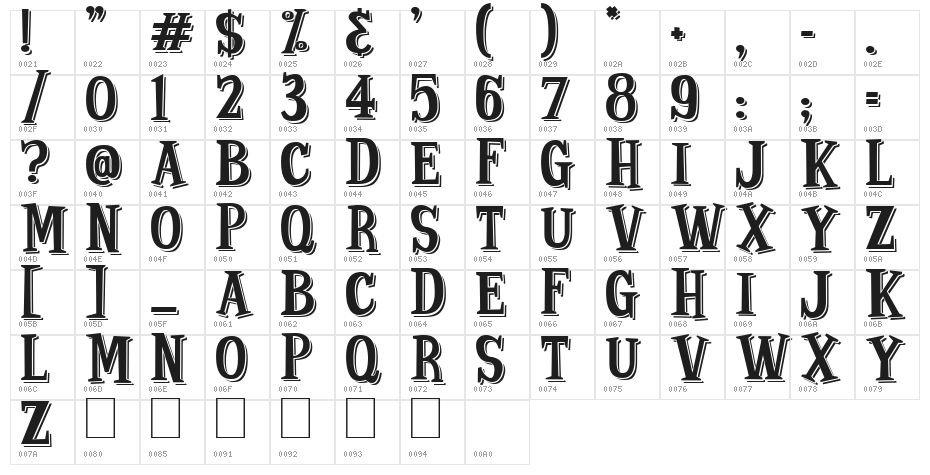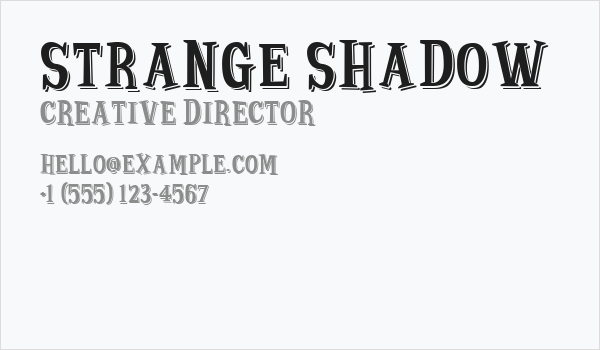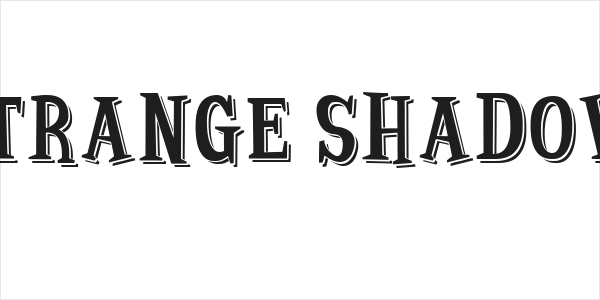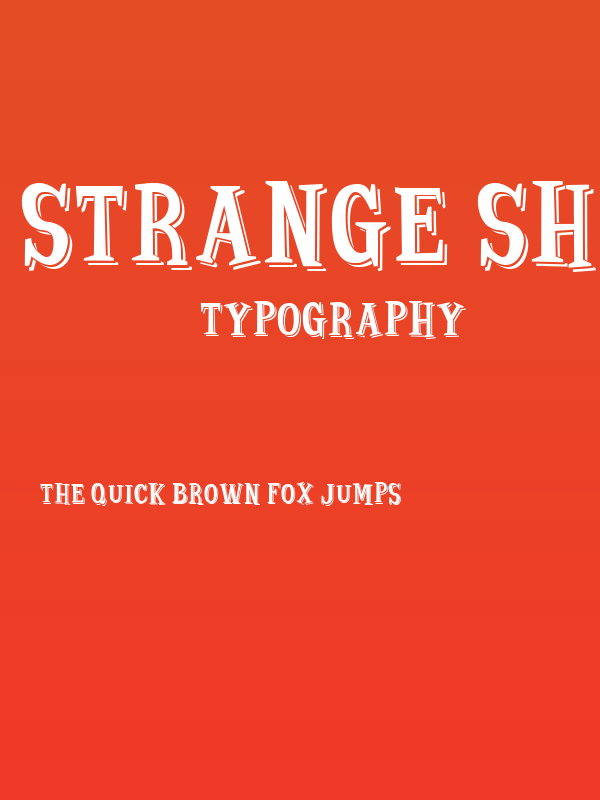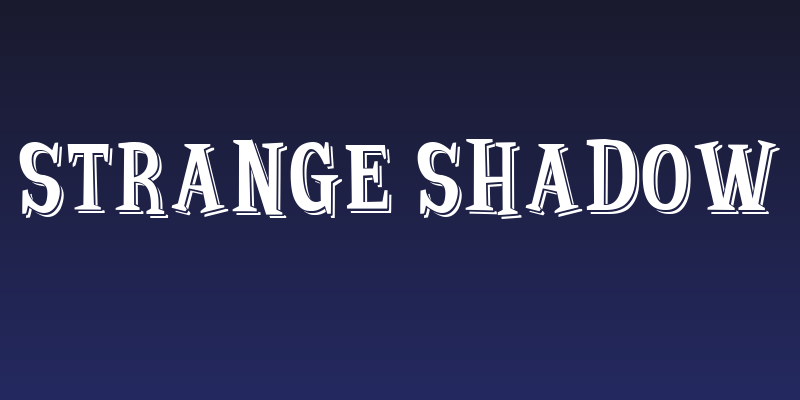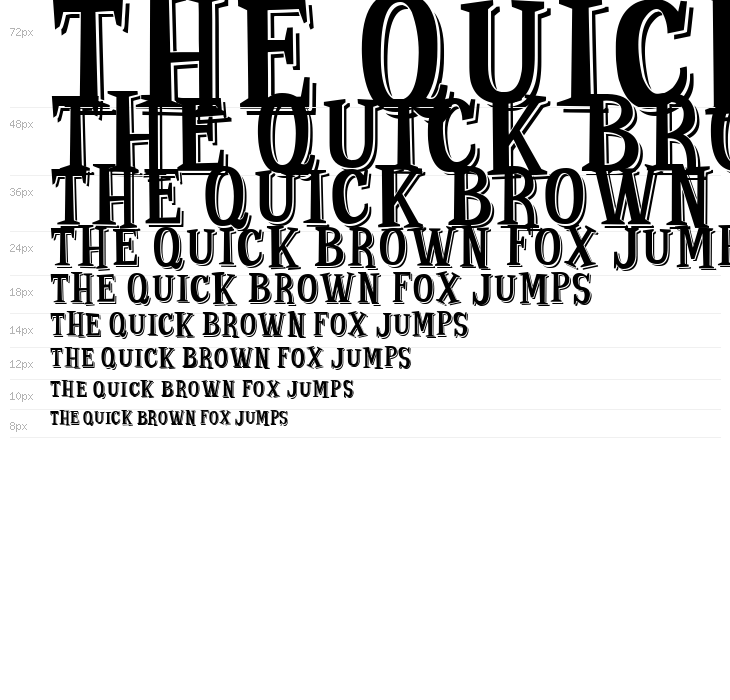
Strange Shadow Font
Strange Shadow Description
This font features a bold and striking design with a distinct shadow effect that gives it a three-dimensional appearance. The characters are uppercase and lowercase letters, numbers, and a variety of special symbols. Each letter is crafted with a strong serif style, adding a classic touch to its modern shadowed look. The shadow is consistently applied, enhancing the depth and making the text stand out prominently. The font's boldness and decorative elements make it suitable for attention-grabbing headlines and titles. Its unique style combines traditional serif elements with a contemporary twist, making it versatile for various design projects.
Proposed ProjectsIdeal for posters, logos, branding materials, and any design requiring a bold, eye-catching typeface.